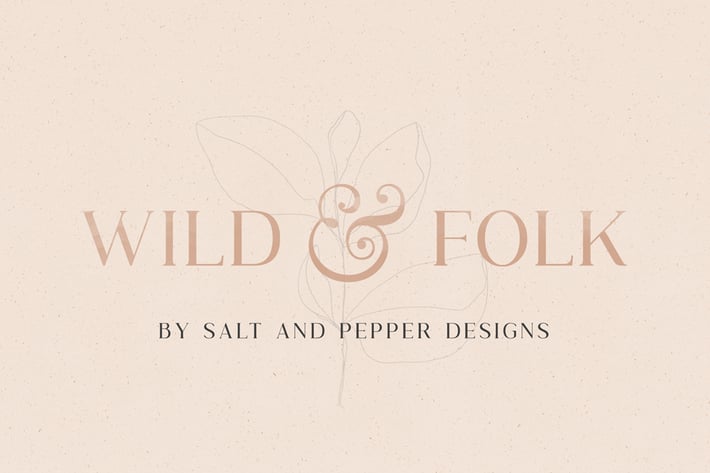
Wild & Folk Font
Introducing the new Wild & Folk Serif font from Salt and Pepper Designs. Classy and elegant, this font was inspired by and created for a love of using classic styles in modern settings.